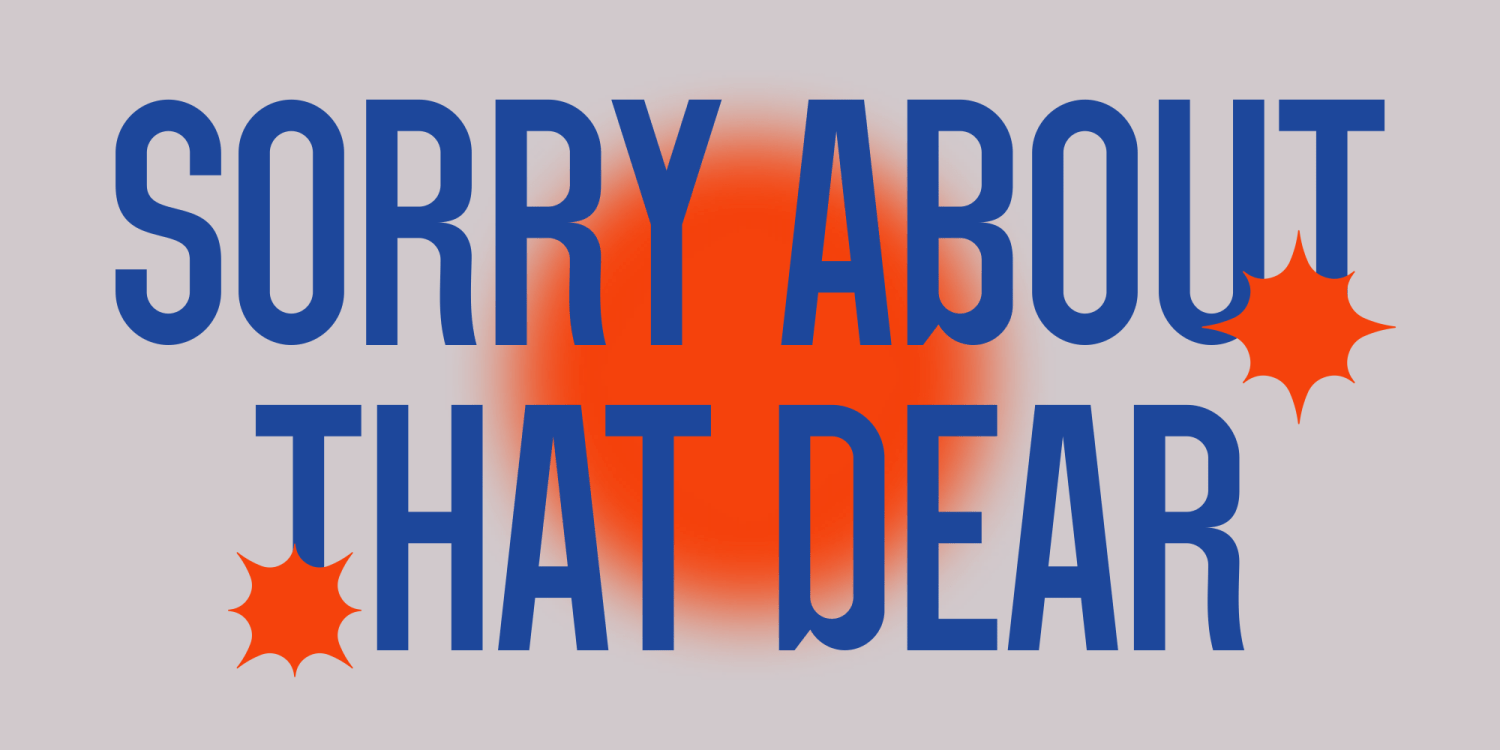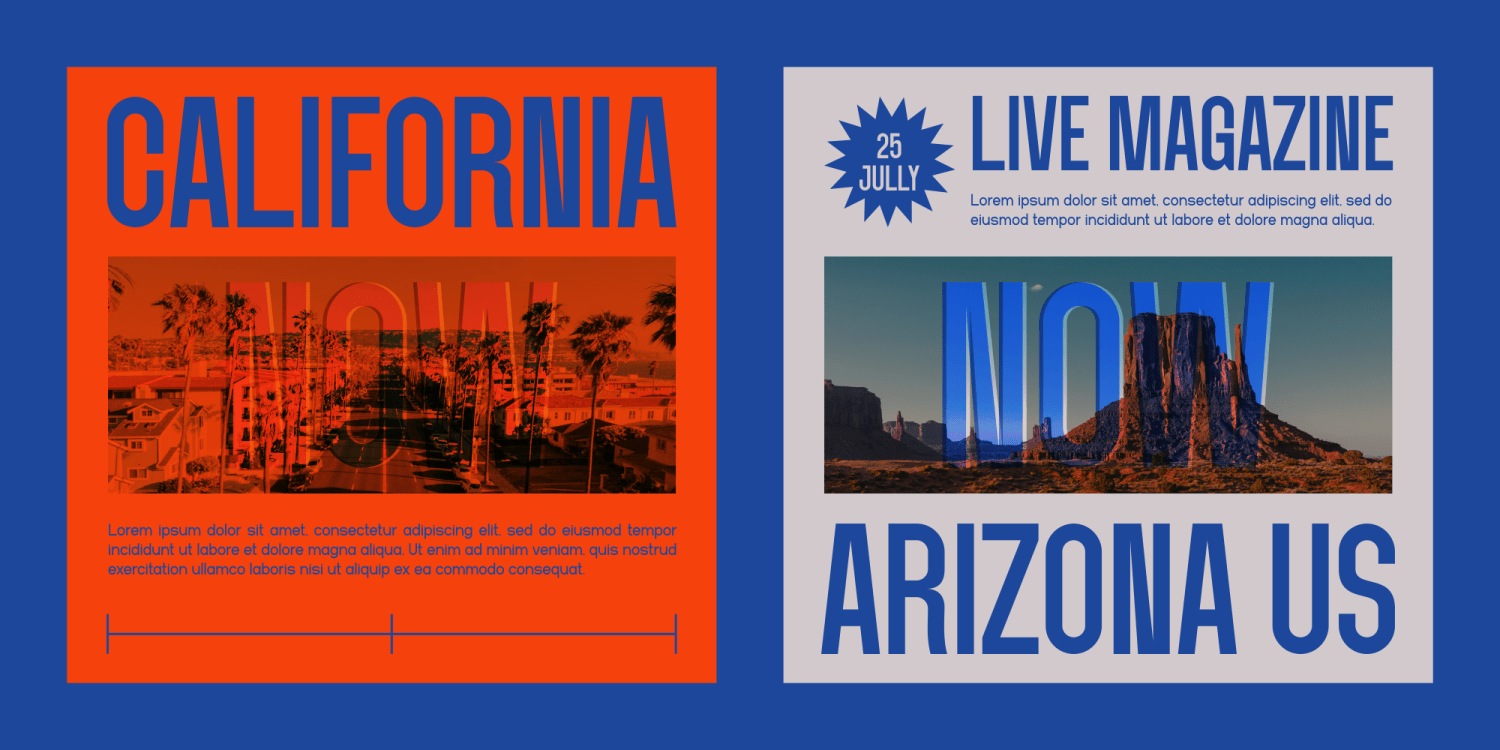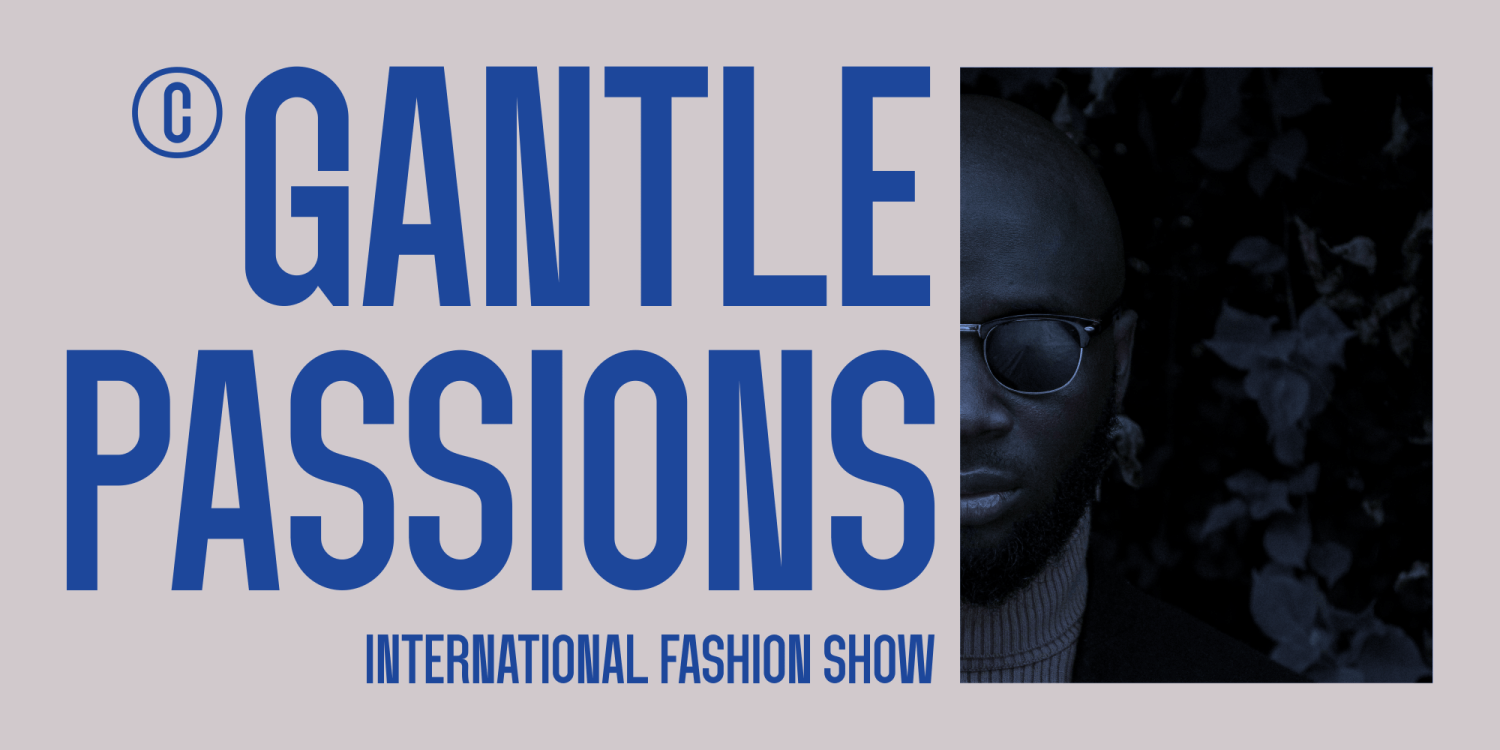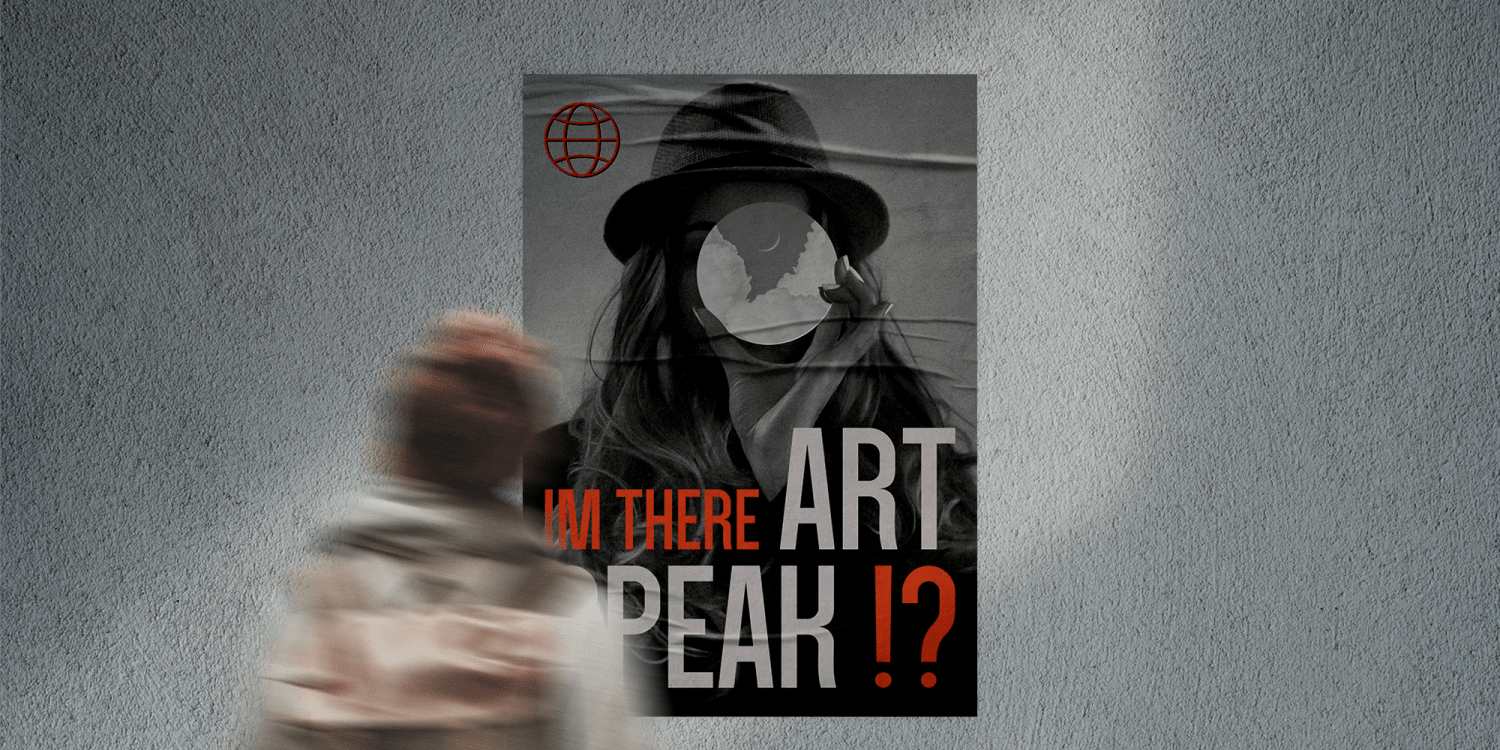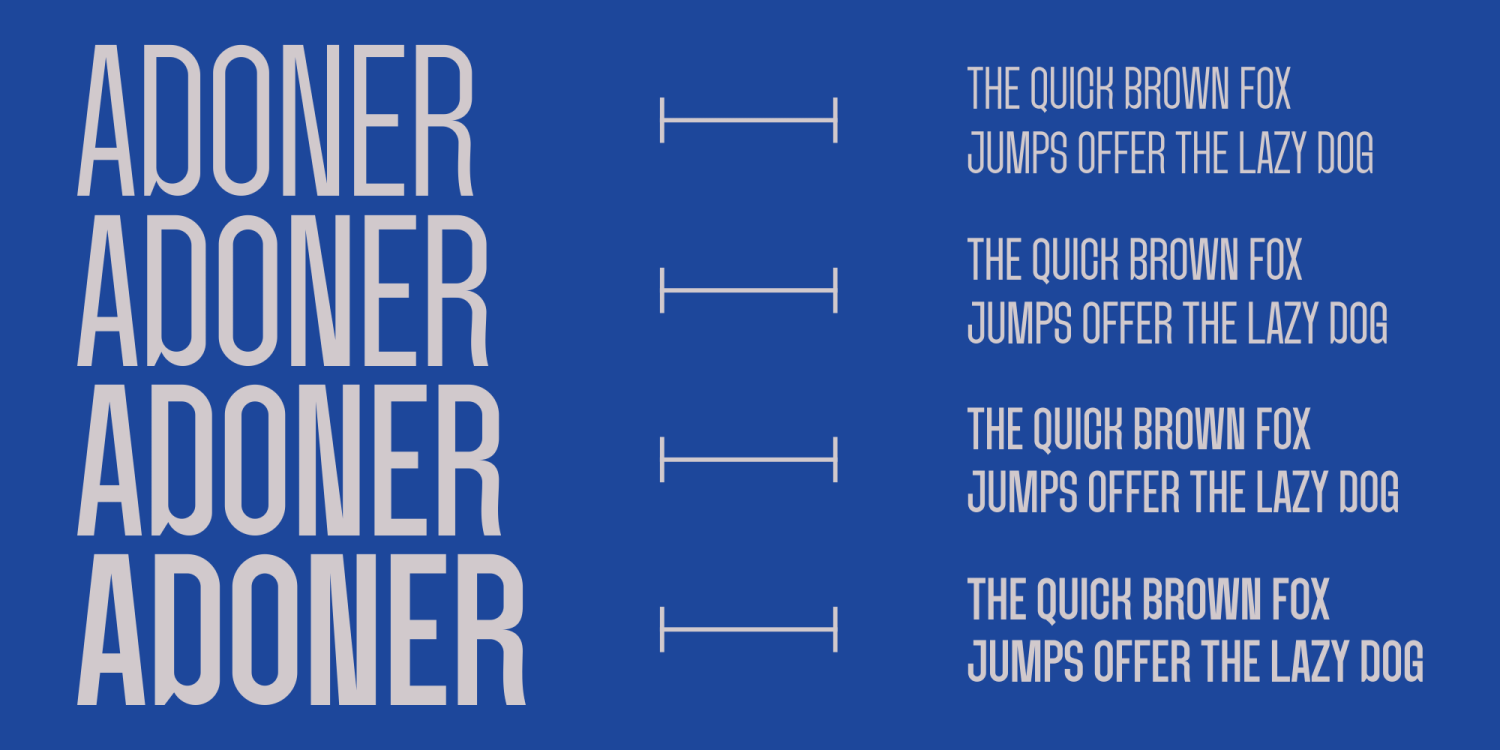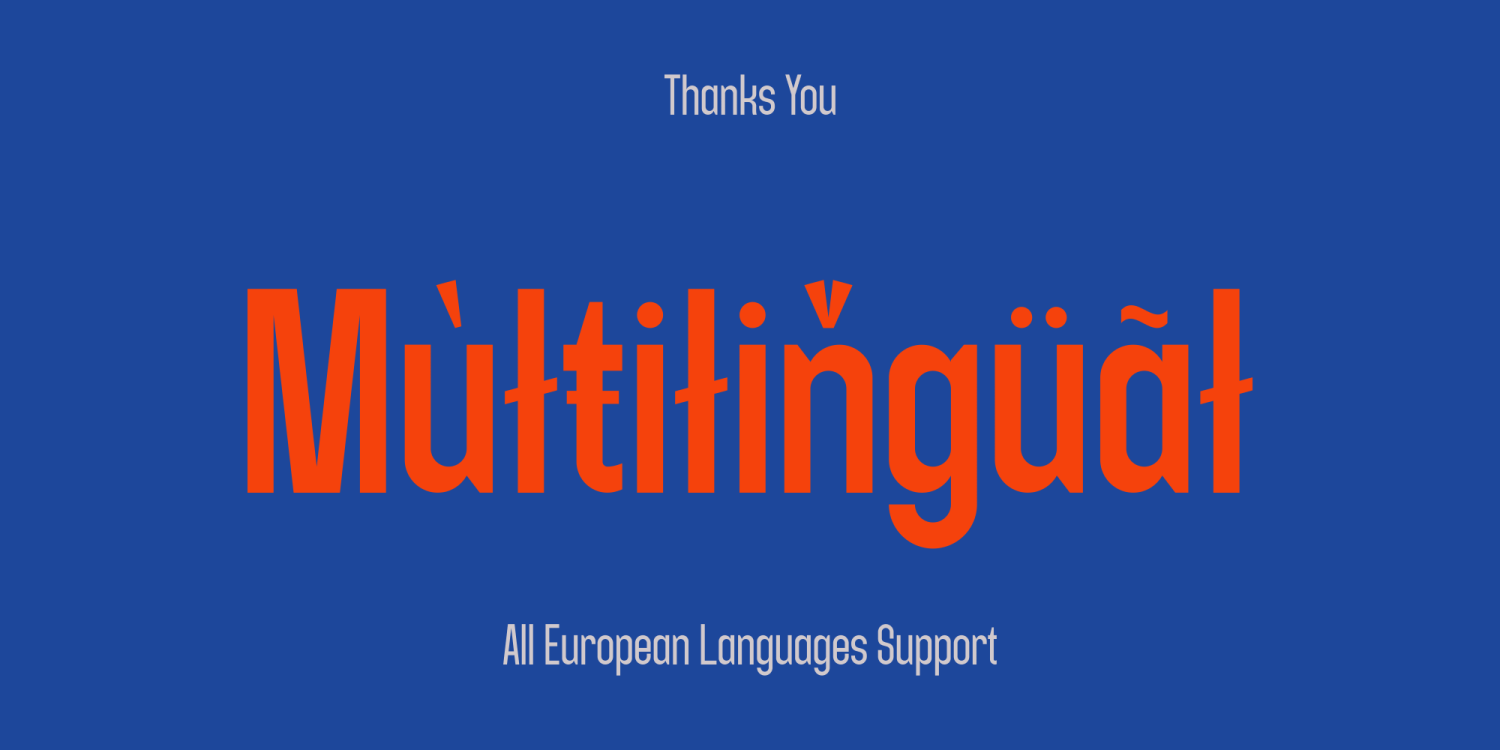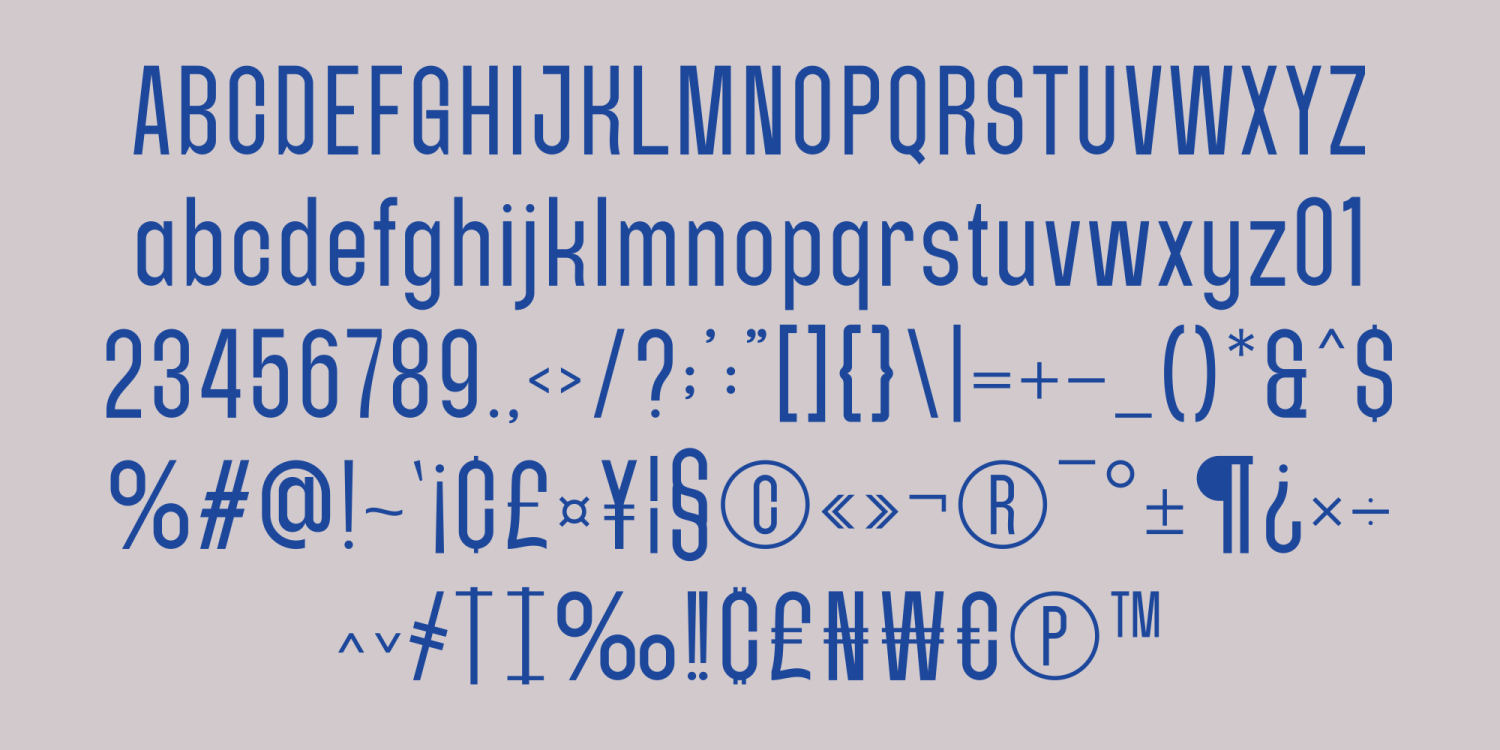
Adoner
Buy NowIntroducing Adoner Condensed - the epitome of sleek, contemporary design in the world of typography. With its compact form and sans serif style, Adoner Condensed exudes confidence and sophistication, making it the perfect choice to attract attention and bring a modern feel to your designs.